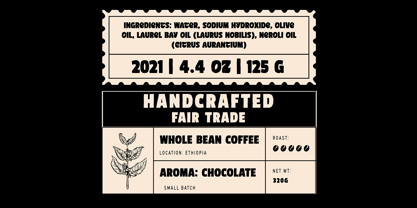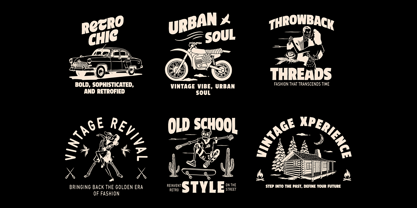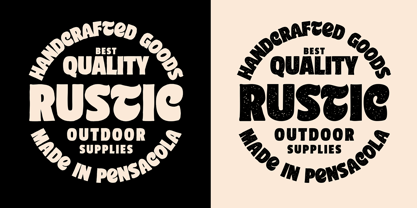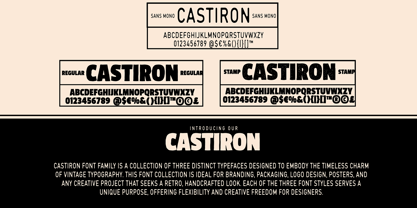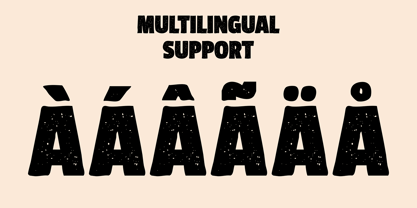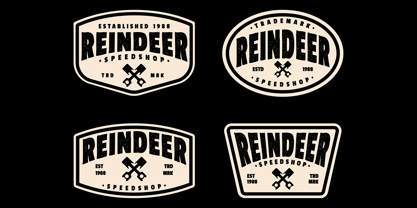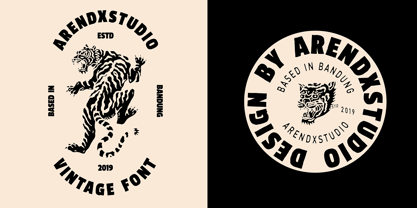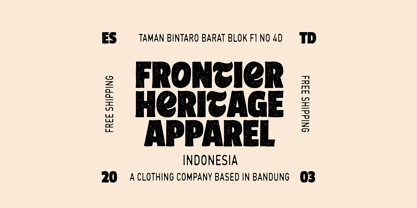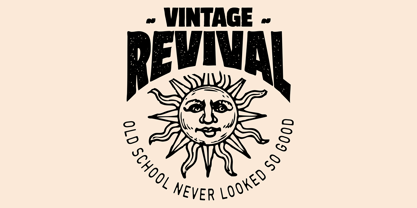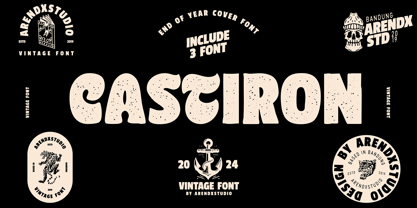
Castiron
von Arendxstudio
Die Schriftfamilie Castiron wurde von Asep Rendi entworfen und von Arendxstudio veröffentlicht. Castiron enthält 3 Stile und Familienpaketoptionen. Mehr über diese Familie
Castiron font family is a collection of three distinct typefaces designed to embody the timeless charm of vintage typography. This font collection is ideal for branding, packaging, logo design, posters, and any creative project that seeks a retro, handcrafted look. Each of the three font styles serves a unique purpose, offering flexibility and creative freedom for designers.
Why Choose the Castiron Font Trio?
The Castiron collection offers a dynamic blend of styles that provide designers with the ability to create multi-layered, impactful designs. By using Regular for strong headlines, Stamp for a rustic, textured look, and Monoline Sans for clean, minimal details, you can achieve balance and versatility in your projects.
Whether you're designing for t-shirt prints, signage, posters, logos, or product packaging, Castiron fonts bring a sense of craftsmanship, nostalgia, and boldness that echoes classic industrial aesthetics.
Features :
Uppercase and lowercase characters
Numerals and Punctuation (OpenType Standard)
Accents (Supports Multilingual Characters)
Designer: Asep Rendi
Foundry: Arendxstudio